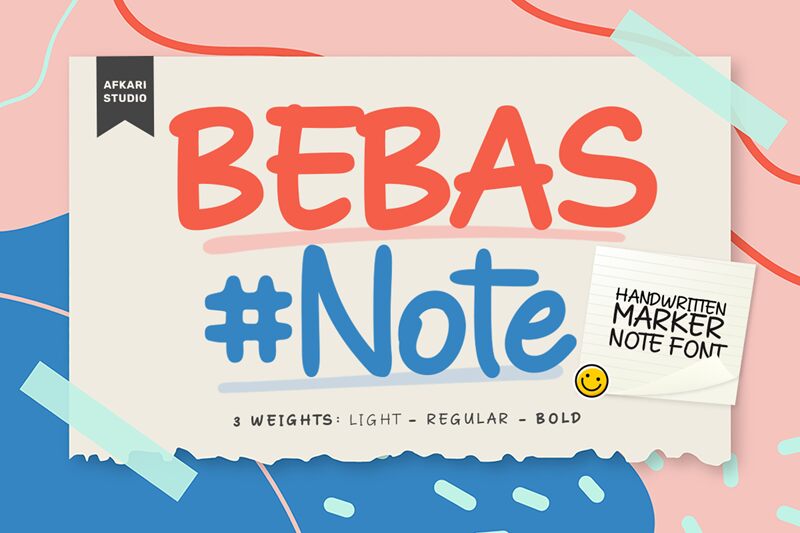
Bebas Note, by Afkari Studio, is a free handwritten font with broad, flowing strokes and an easy marker-drawn rhythm. Soft curves, gently uneven forms, and close-set letters give the writing a warm, spontaneous character without leaning into messy scrawl.
This free font suits casual branding, cafe menus, product packaging, social posts, and event posters. Its generous shapes also work well for short headlines and cover lines, where the relaxed movement can carry a simple message without extra ornament.